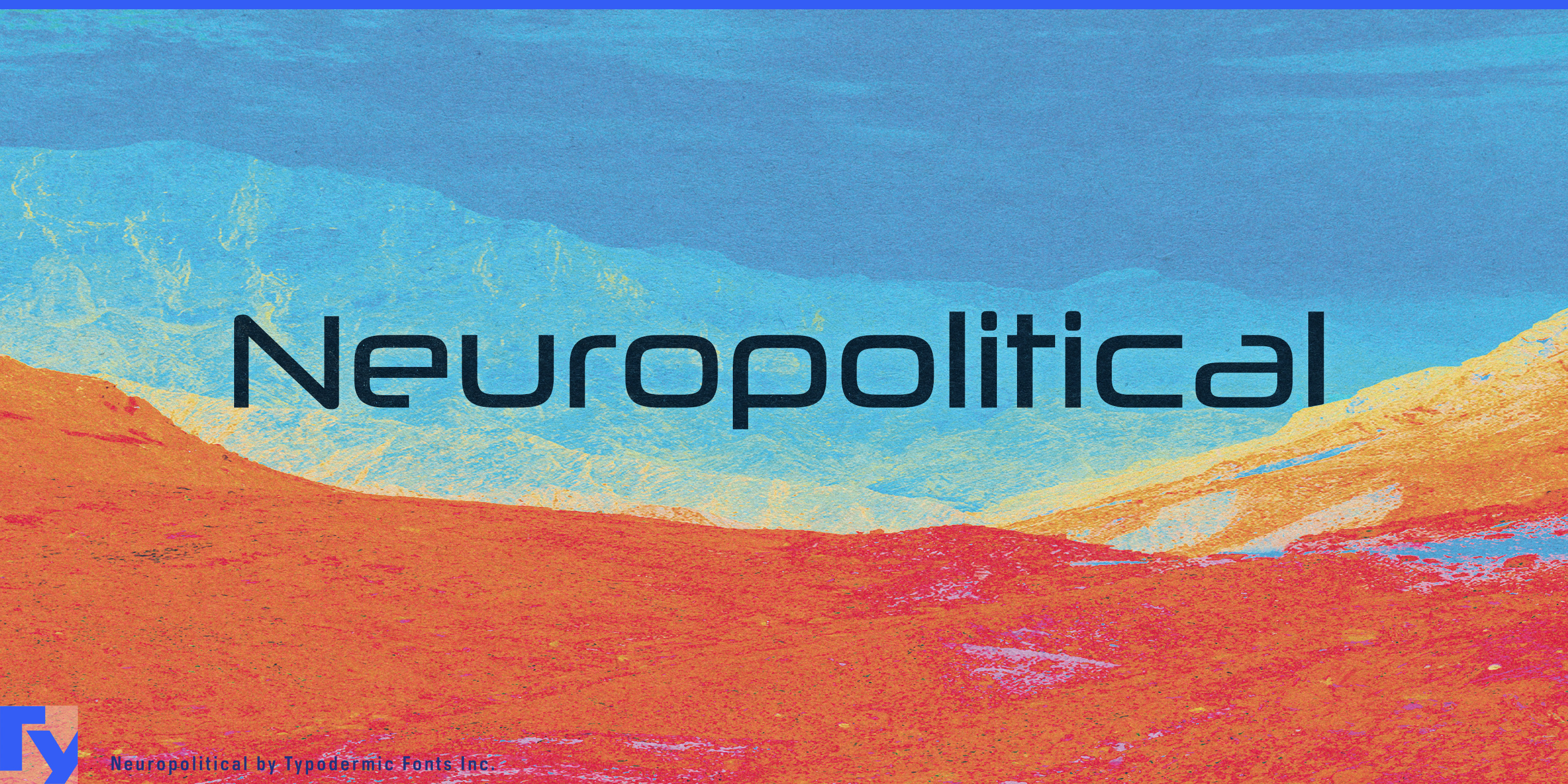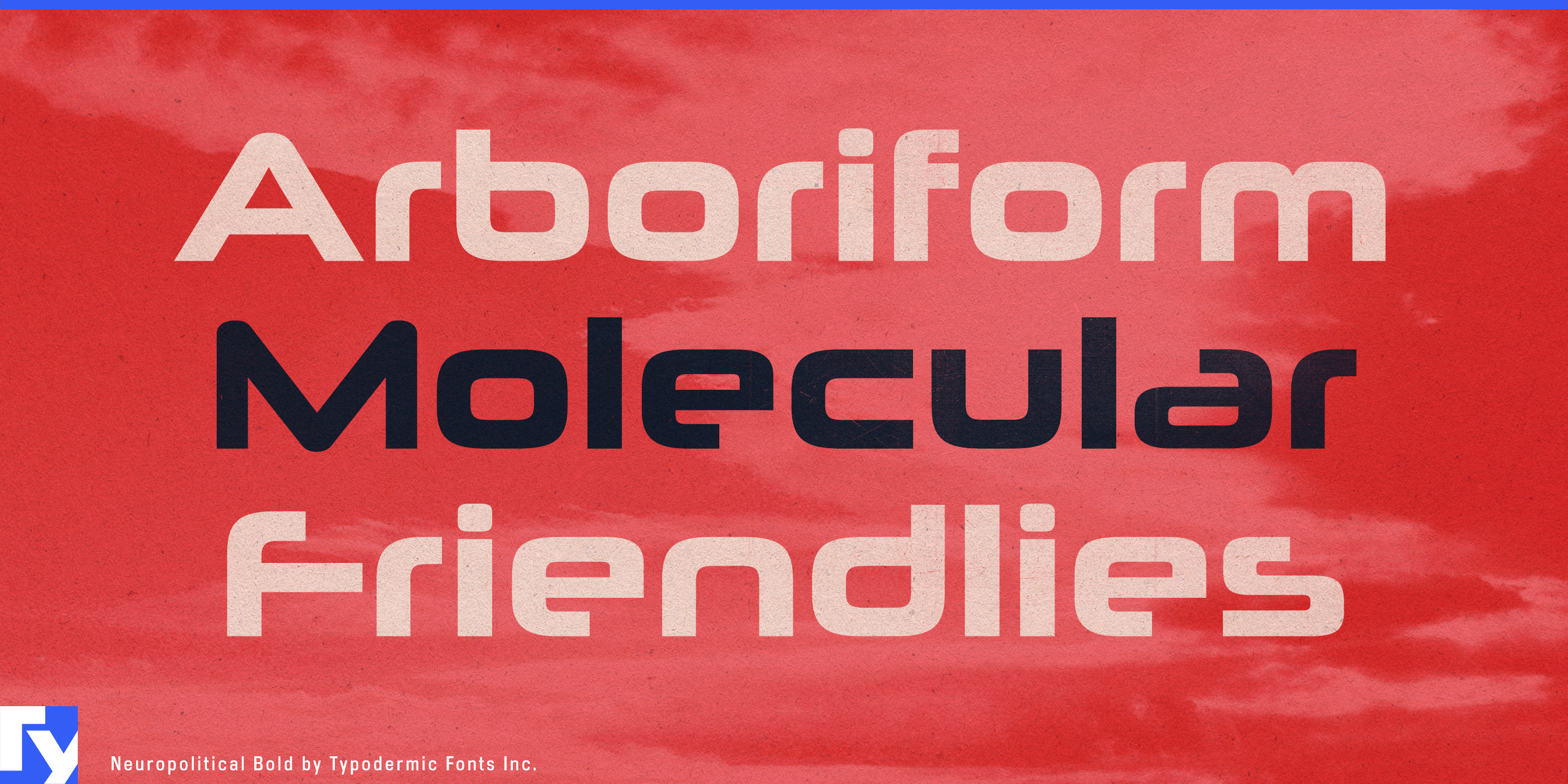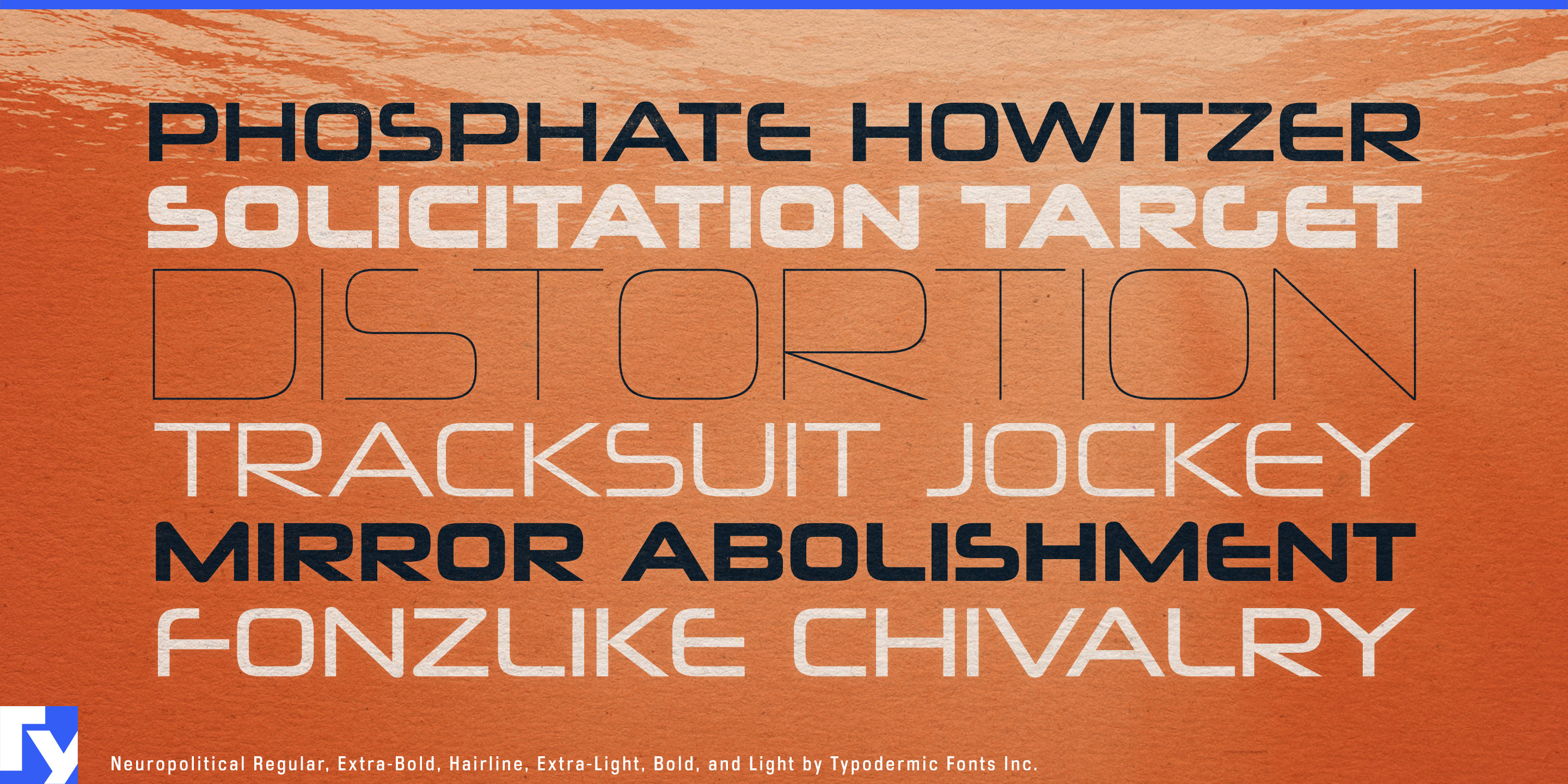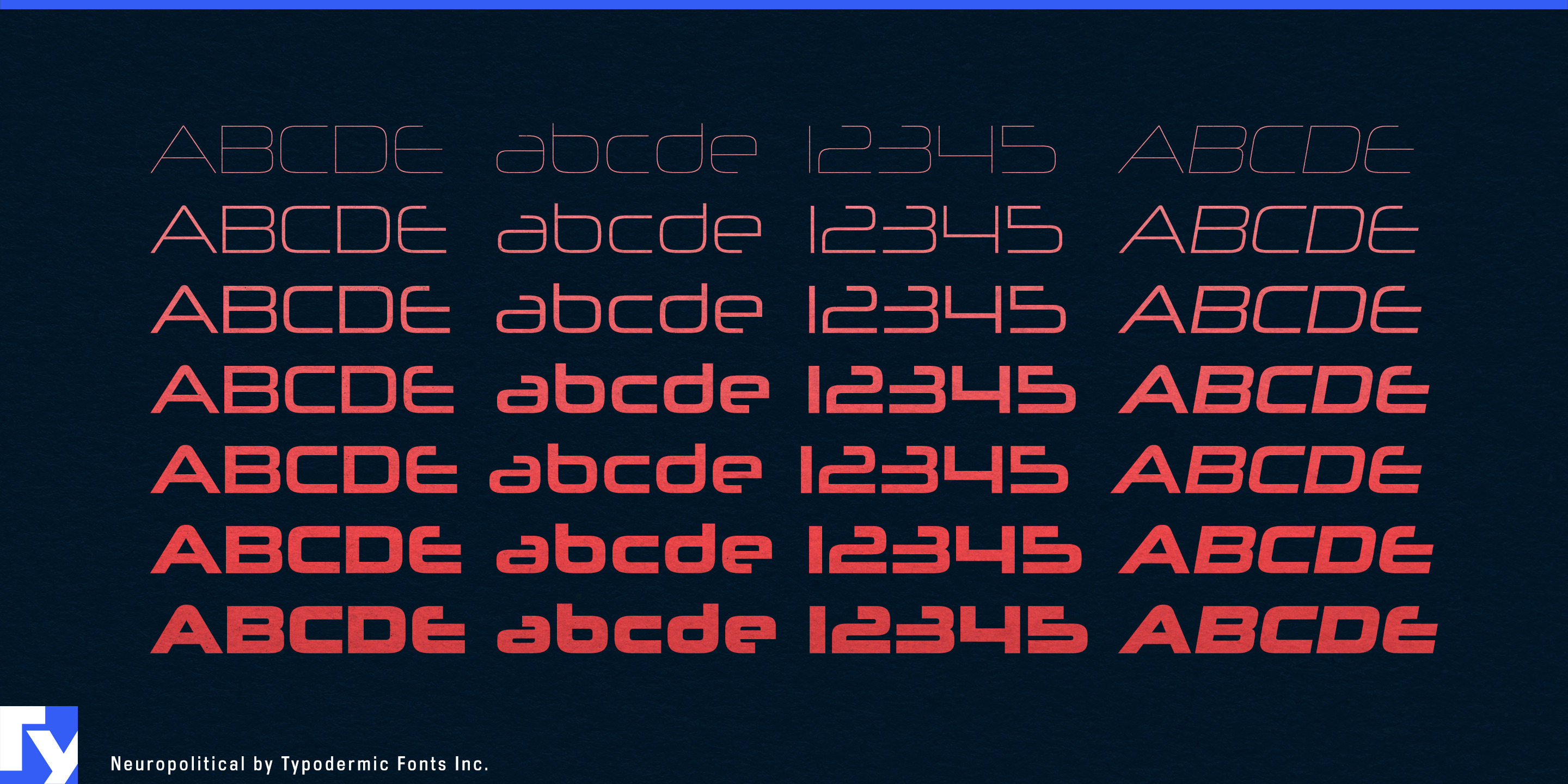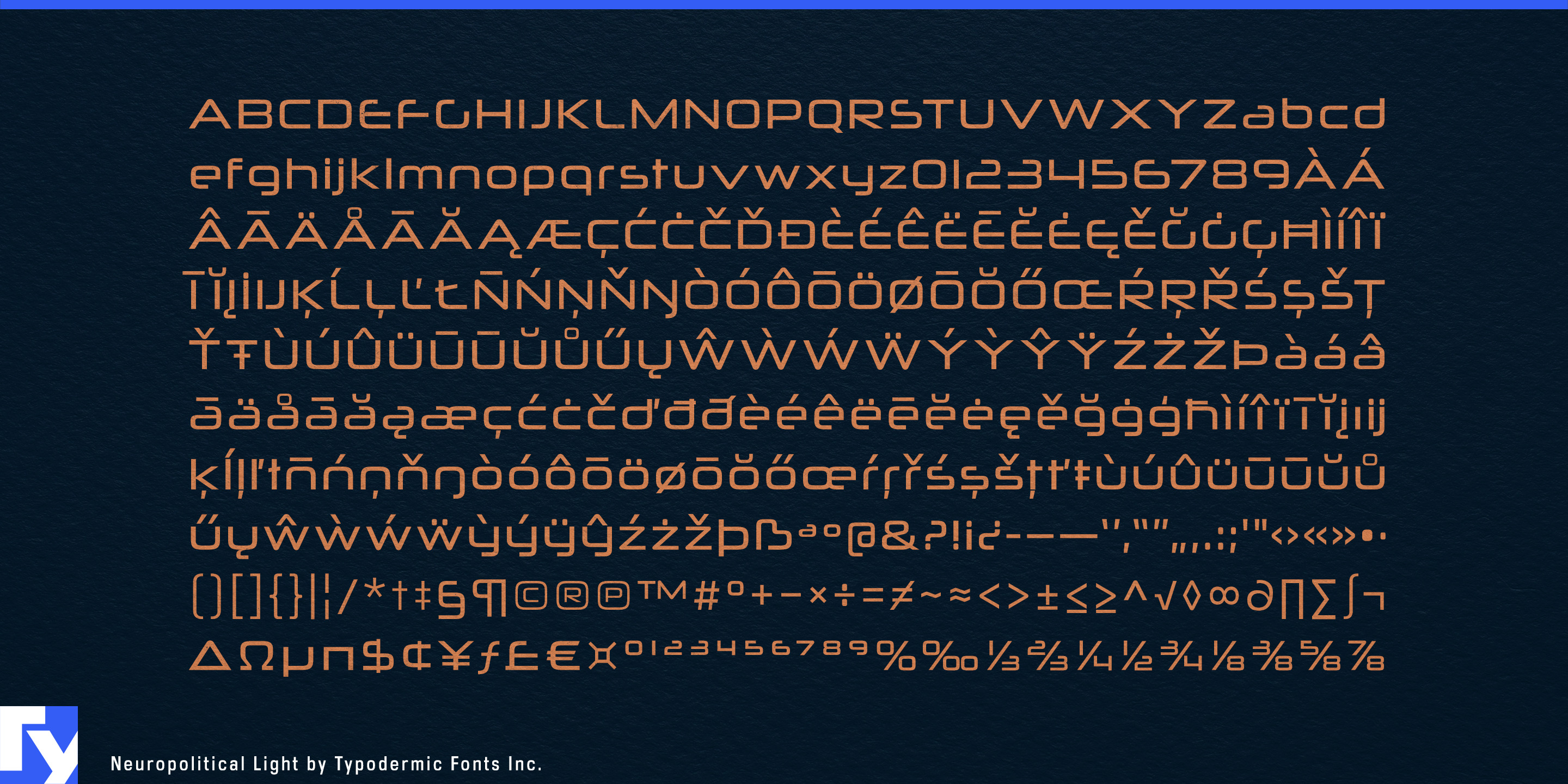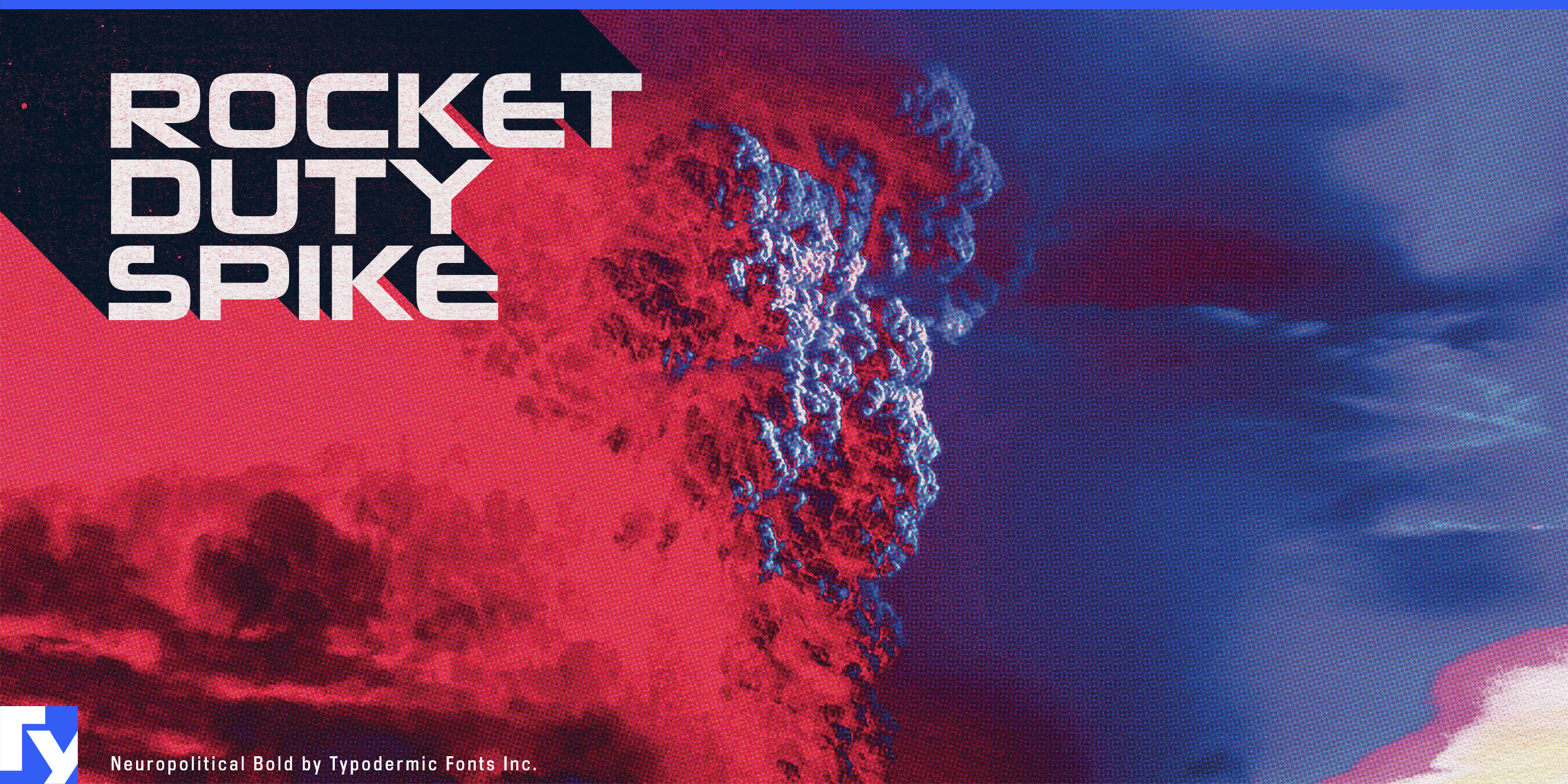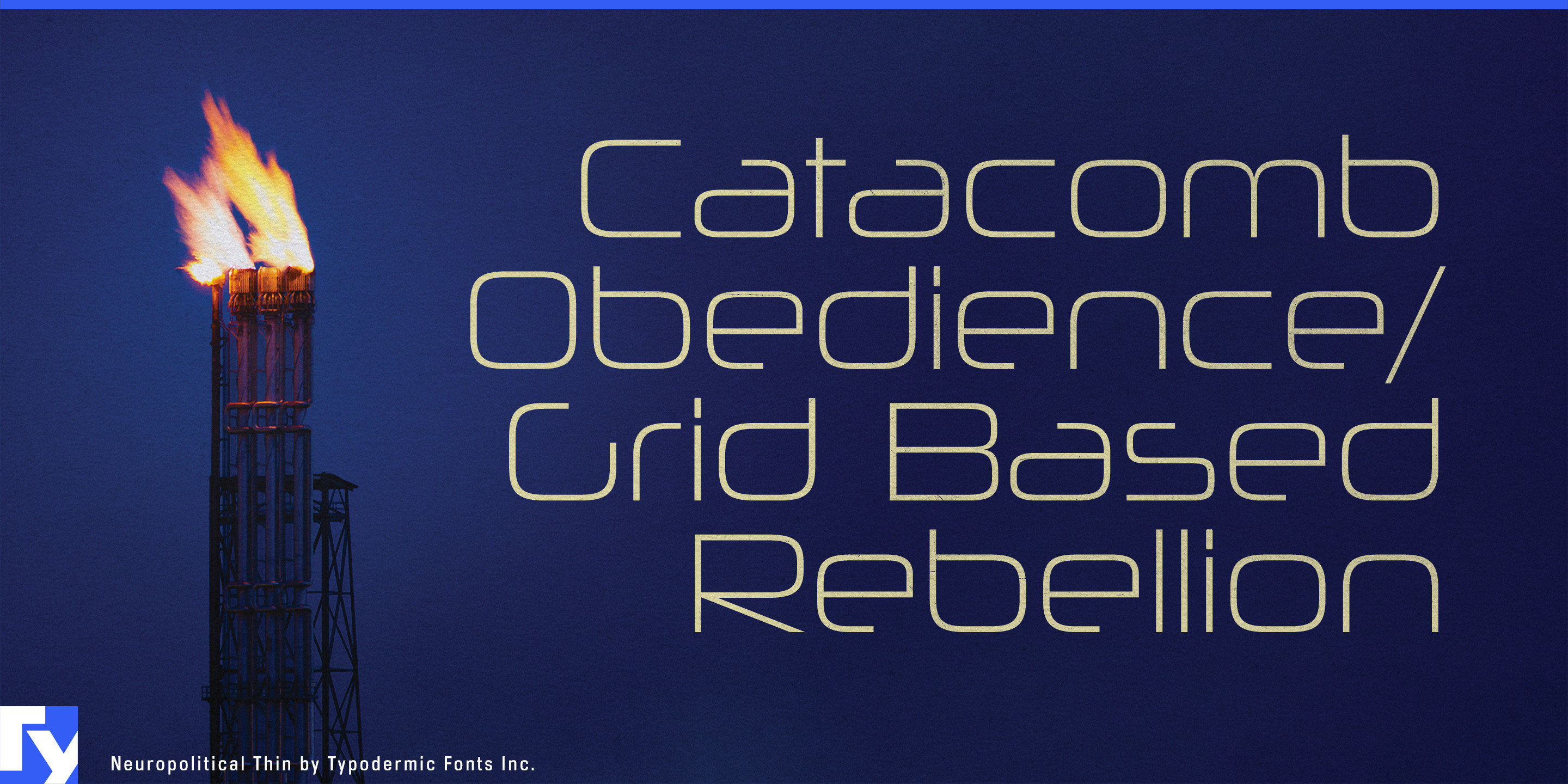
Neuropolitical is an ultramodern display typeface with a technical appearance. Wide, square curves and sharp ends will give your message a voice of industrial efficiency. The letterforms of Neuropolitical are based on the famous 1990s techno typeface, Neuropol. However, there are times when a harder edge is required to successfully convey your idea. Neuropolitical is available in 7 weights and italics. Most Latin-based European writing systems are supported, including the following languages. Afaan Oromo, Afar, Afrikaans, Albanian, Alsatian, Aromanian, Aymara, Bashkir (Latin), Basque, Belarusian (Latin), Bemba, Bikol, Bosnian, Breton, Cape Verdean, Creole, Catalan, Cebuano, Chamorro, Chavacano, Chichewa, Crimean Tatar (Latin), Croatian, Czech, Danish, Dawan, Dholuo, Dutch, English, Estonian, Faroese, Fijian, Filipino, Finnish, French, Frisian, Friulian, Gagauz (Latin), Galician, Ganda, Genoese, German, Greenlandic, Guadeloupean Creole, Haitian Creole, Hawaiian, Hiligaynon, Hungarian, Icelandic, Ilocano, Indonesian, Irish, Italian, Jamaican, Kaqchikel, Karakalpak (Latin), Kashubian, Kikongo, Kinyarwanda, Kirundi, Kurdish (Latin), Latvian, Lithuanian, Lombard, Low Saxon, Luxembourgish, Maasai, Makhuwa, Malay, Maltese, Māori, Moldovan, Montenegrin, Ndebele, Neapolitan, Norwegian, Novial, Occitan, Ossetian (Latin), Papiamento, Piedmontese, Polish, Portuguese, Quechua, Rarotongan, Romanian, Romansh, Sami, Sango, Saramaccan, Sardinian, Scottish Gaelic, Serbian (Latin), Shona, Sicilian, Silesian, Slovak, Slovenian, Somali, Sorbian, Sotho, Spanish, Swahili, Swazi, Swedish, Tagalog, Tahitian, Tetum, Tongan, Tshiluba, Tsonga, Tswana, Tumbuka, Turkish, Turkmen (Latin), Tuvaluan, Uzbek (Latin), Venetian, Vepsian, Võro, Walloon, Waray-Waray, Wayuu, Welsh, Wolof, Xhosa, Yapese, Zapotec Zulu and Zuni.